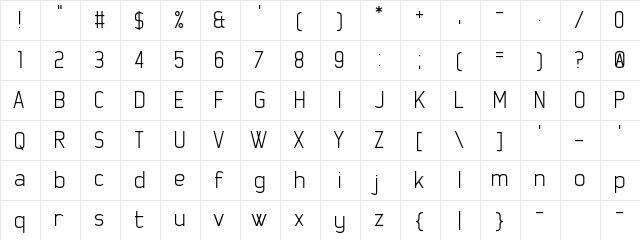
Fosterama Regular
| Designer | Allison James |
Design Context for Fosterama Typeface
Fosterama takes a measured approach to typography — its balanced proportions and neutral character make it a reliable workhorse for both digital and print work.